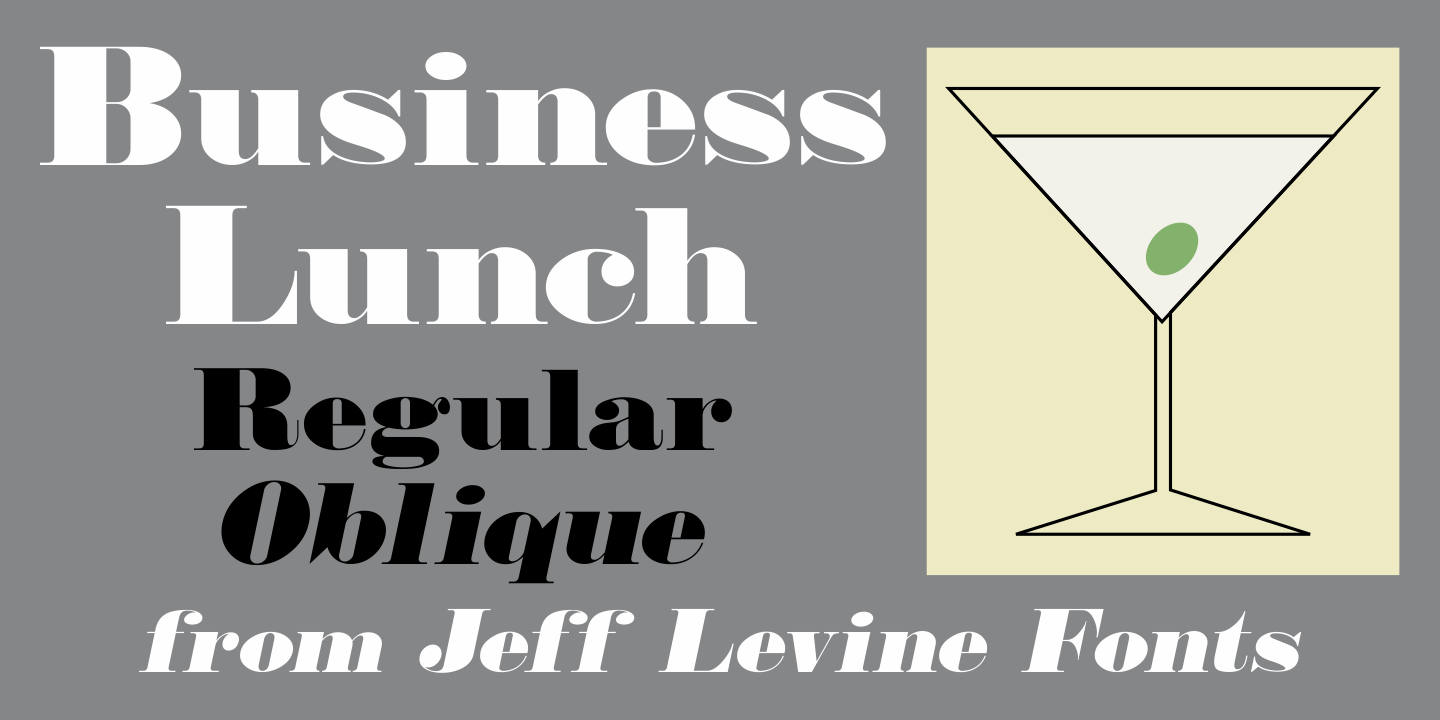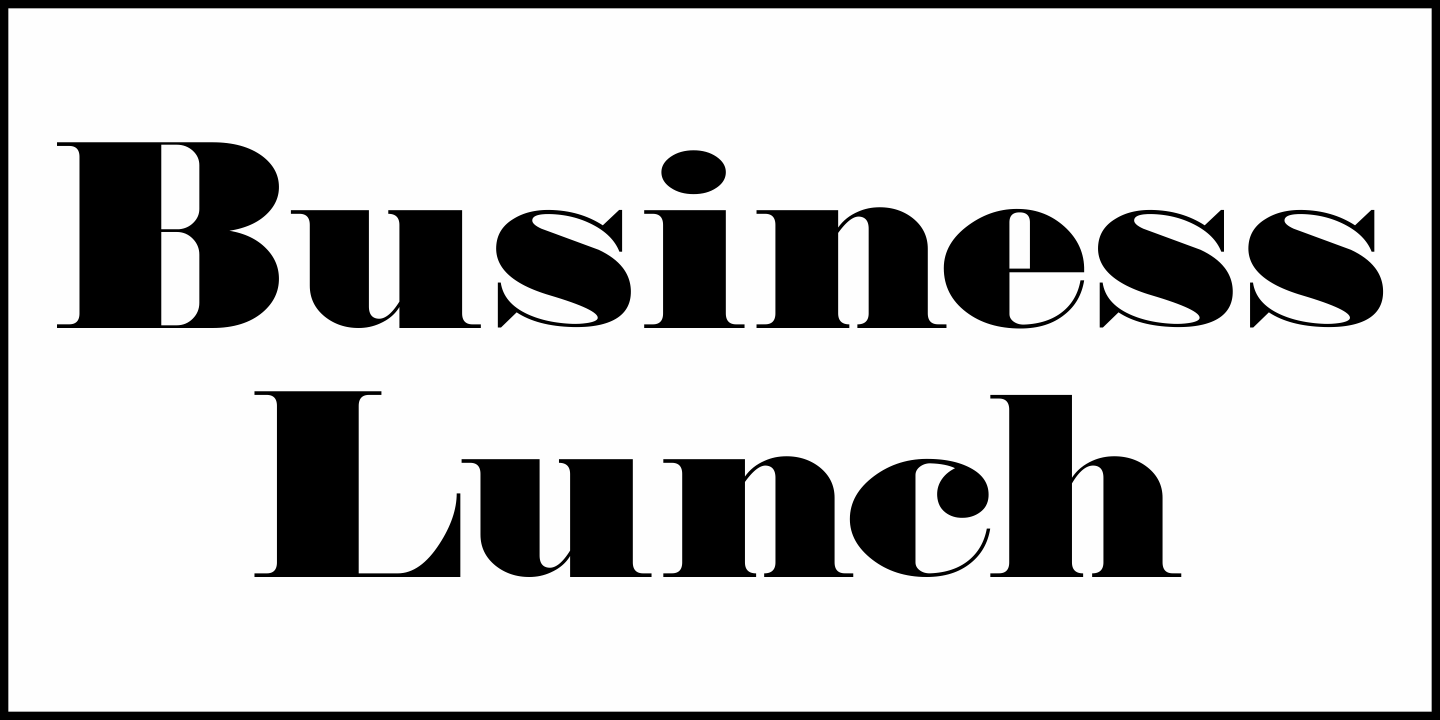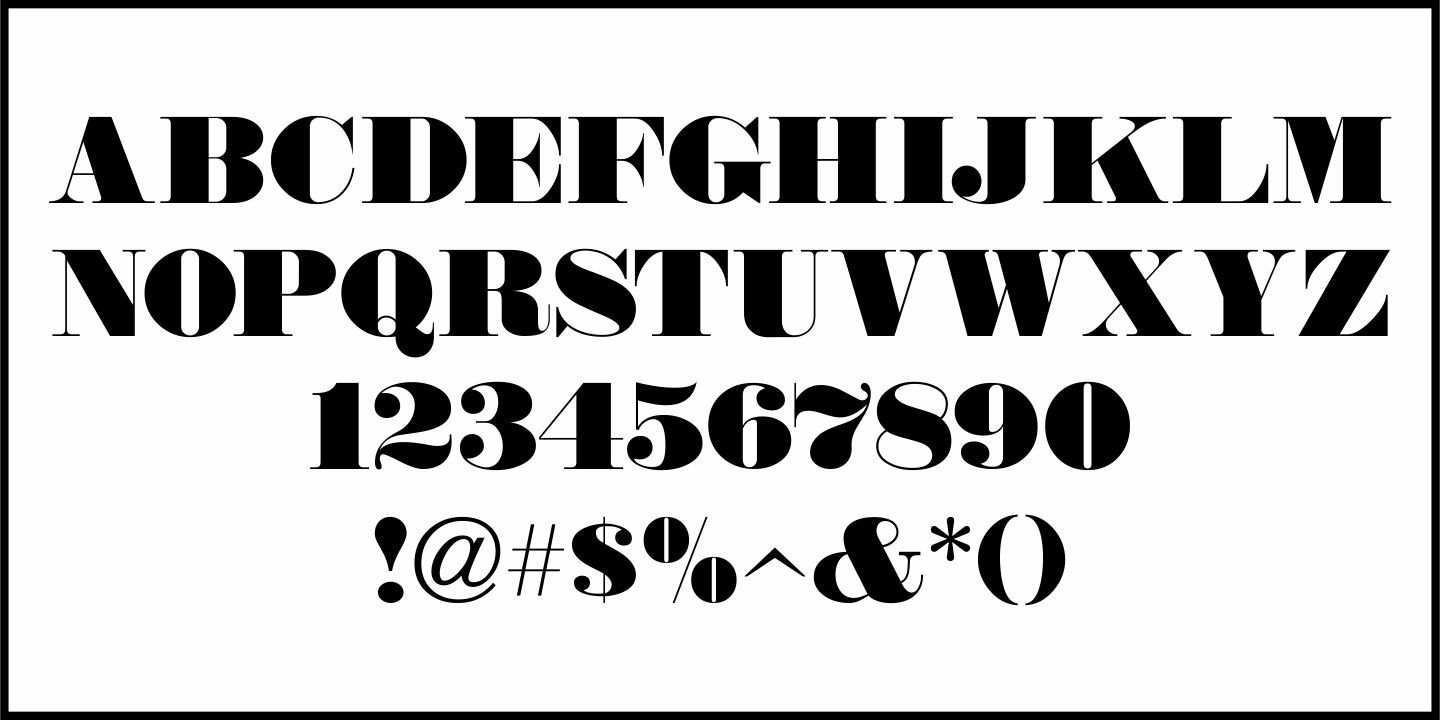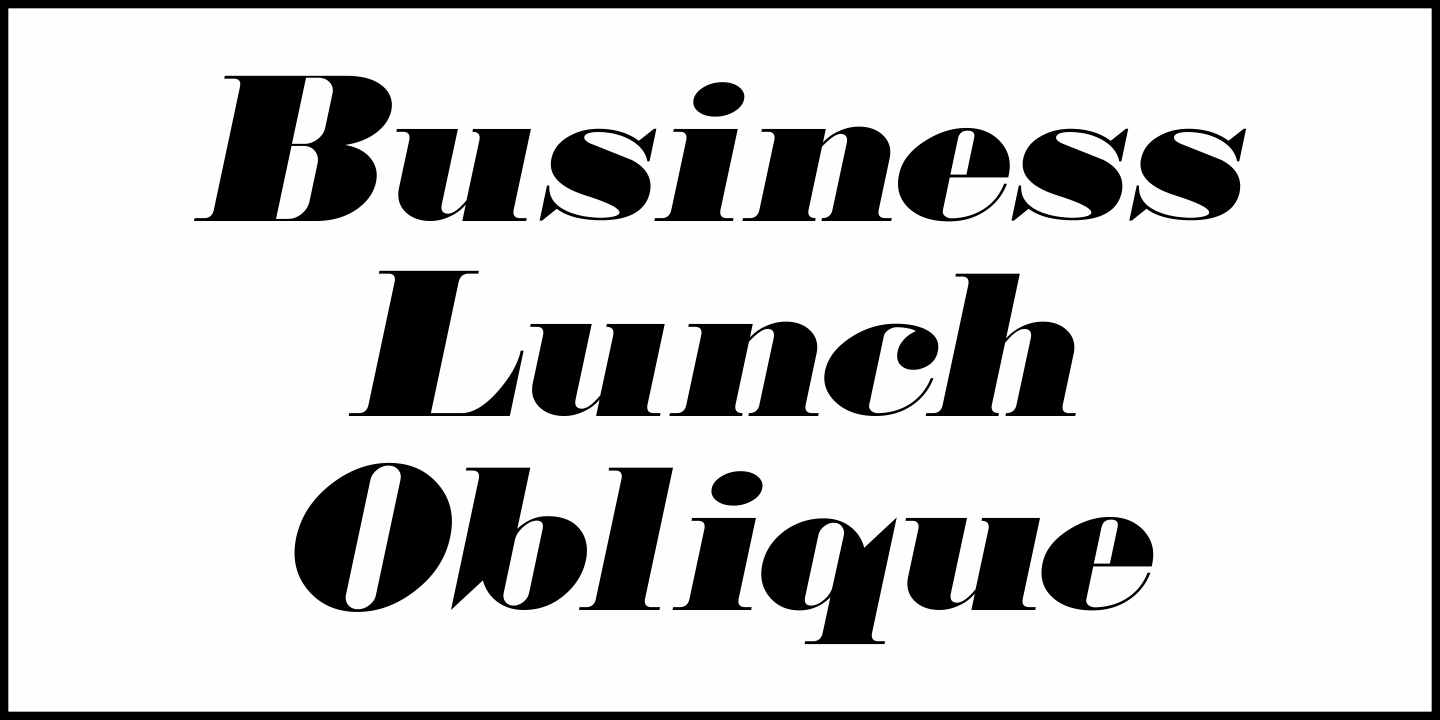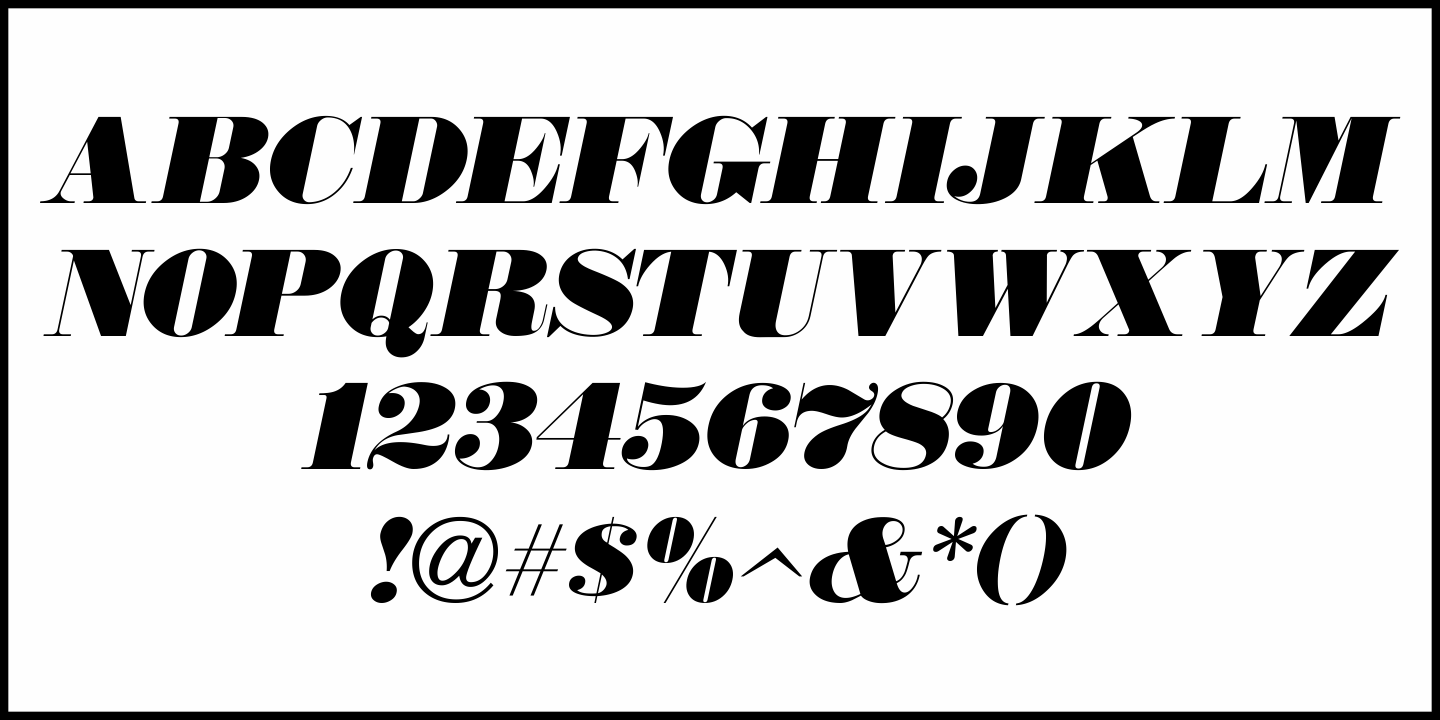
Business Lunch
Business Lunch JNL is an extra bold hairline serif font based on Monotype’s Falstaff, which in turn was greatly influenced by Bodoni Extra Bold.
Great for posters, menu headers and other forms of headlining, Business Lunch JNL is available in both regular and oblique versions.